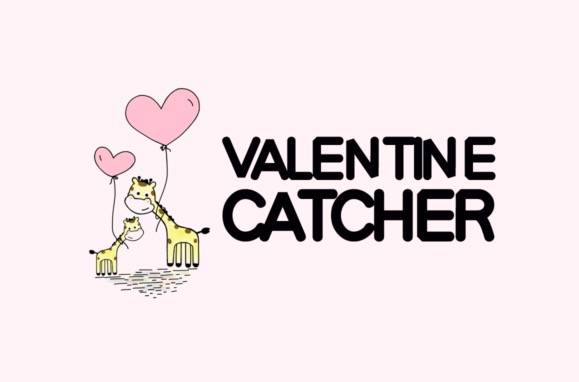
Affection font is a new charming display typeface which was designed by Instagram Fonts. This display font has a fun alternate and ligature. So, your job will become more interesting.
Affection font supports a lot of international languages. This font is being widely used in many premium designs. This typeface is too useful and effective for satisfying the designer’s requirements. Because its characters are refined, serious and gorgeous.
You can apply this Affection font for your designing purposes. Such as designing a t-shirt, print design, photo frame, music cover, logos, website header, paper, poster, stationery, etc.
Affection Display Font